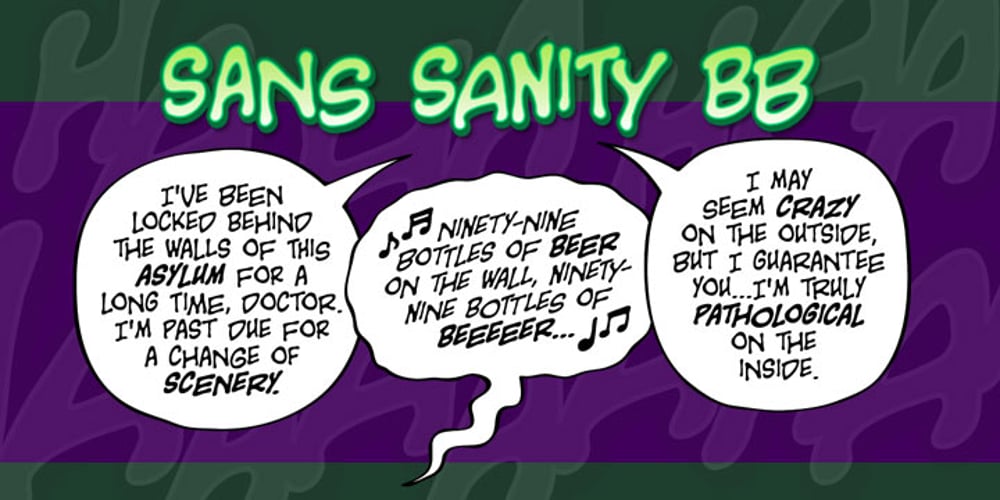
Sans Sanity BB Font Family was designed by Nate Piekos and published by Blambot. Sans Sanity BB contains 5 styles and family package options. Are you a few sandwiches short of a picnic? Maybe drunk as a skunk? Blambot’s Sans Sanity BB is the font for you! Itís a comic book dialogue font with a staggered baseline and OpenType autoligatures that swap out duplicate letters for an organic, hand-lettered look. A dizzying array of European characters are features with Regular, Bold and Italic included!